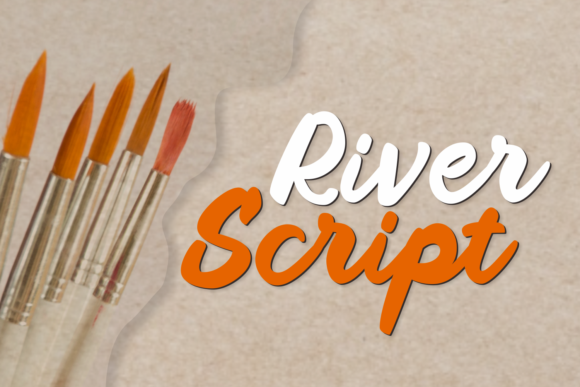
River Script: The Artisan Font for Authentic Branding
The Handcrafted Character of River Script
There’s a particular quality in handwritten letterforms that digital precision often misses. River Script captures that elusive, organic rhythm—the slight irregularity, the natural flow of ink on paper, the human imperfection that feels genuinely authentic. This isn’t a typeface that mimics calligraphy with mechanical perfection. Instead, it carries the warmth of a quick note from a friend, the personality of a hand-lettered sign at a local market, the casual elegance of someone who writes beautifully without trying too hard.
Visually, River Script balances fluidity with legibility in a way many script fonts struggle to achieve. The letterforms connect naturally, creating a sense of movement across the line without descending into illegible loops and swashes. There’s a modern sensibility beneath its organic exterior—proportions feel contemporary, spacing feels intentional, and the overall texture sits comfortably alongside both serif font and sans serif font companions. It reads as personal without being childish, artistic without being impractical.
Where River Script Truly Shines
I’ve seen this kind of script font work beautifully in contexts where brands want to signal approachability and craftsmanship. Think about the logo for a neighborhood bakery, the masthead of an independent food magazine, or the header graphics for a lifestyle blogger who writes about slow living and handmade goods. River Script fits these spaces naturally because it communicates values—care, personality, authenticity—through its very appearance.
Brand identity projects benefit enormously from fonts like this. When you’re building a visual system for a small business, especially one in hospitality, wellness, artisan goods, or creative services, a handwritten font can become the emotional anchor of the entire design. River Script works well as a display element—think business cards, product labels, website headers, and signage—where it can breathe and show its character at larger sizes.
In packaging design, particularly for products that emphasize natural ingredients, small-batch production, or personal touch, River Script adds immediate credibility to those claims. A jar of homemade jam, a candle with hand-poured origins, a skincare line built on botanical extracts—these products benefit from typography that visually reinforces their story. The font does some of that storytelling work before anyone reads a single word.
Social media graphics present another strong application. Instagram quotes, Pinterest pins, story highlights, and promotional posts all benefit from typefaces that stop the scroll. River Script has enough visual interest to create hierarchy and draw attention, but it doesn’t overwhelm accompanying sans serif font text or photography. That balance matters when you’re competing for attention in crowded feeds.
Editorial design offers more nuanced opportunities. Feature headlines in magazines, chapter openers in books, pull quotes in digital articles—these moments call for typographic personality without sacrificing the reading experience. River Script handles these roles well because its character supports content rather than competing with it.
Working With River Script in Real Projects
Choosing any premium font requires thinking beyond aesthetics. River Script’s greatest strength—its organic, handmade quality—also means it demands thoughtful implementation. At small sizes, detailed script fonts can lose definition. Body text set entirely in River Script would exhaust readers quickly. Understanding these boundaries helps you use the typeface where it actually performs well.
Font pairing becomes essential here. I’d recommend testing River Script alongside clean, geometric sans serifs for modern projects, or with traditional serifs for more classic compositions. The contrast between the script’s fluid personality and a structured companion font creates visual interest while maintaining readability. Set your headlines in River Script, your subheadings in a medium-weight sans serif, and your body copy in something highly readable at text sizes.
Before committing to any commercial font for a project, examine what’s actually included in the package. Does River Script offer multiple weights? Are there alternate characters, ligatures, or stylistic sets that give you flexibility? A robust display font with OpenType features lets you customize the look across different applications—adjusting letter connections, swapping initial or final characters, or introducing subtle variation that prevents the typeface from looking repetitive.
Readability testing matters more with scripts than with most other categories. Print your layouts. View them on different screens. Ask someone unfamiliar with the project to read the key messages. If they struggle, the font isn’t serving the content, regardless of how beautiful it looks in isolation. Good modern typography always prioritizes communication.
Experiment with River Script across different contexts. Mock up a few variations before settling on applications. Test it in your specific color palette, with your photography style, alongside your existing typographic choices. The goal isn’t to use it everywhere but to deploy it strategically where its character enhances your message and strengthens your connection with the people you’re trying to reach.